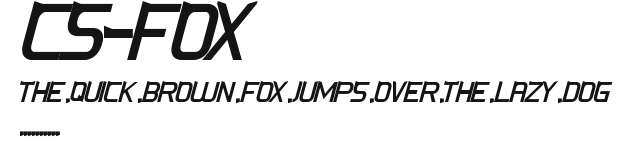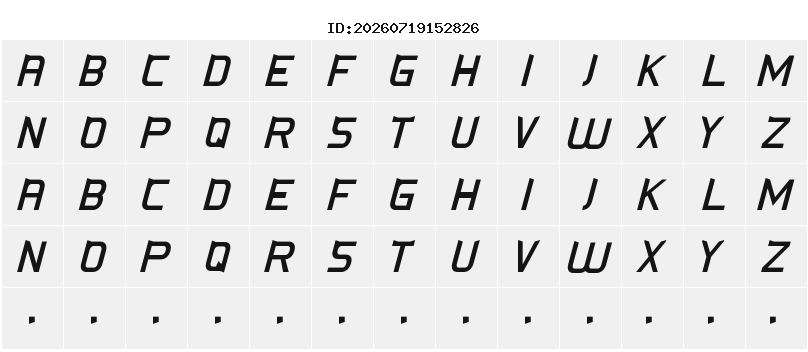
• Font Name: CS-Fox
• Designer: Charlie Samways
About CS-Fox.ttf
CS-Fox.ttf is a modern, elegant sans-serif font designed for ultimate readability and visual harmony. Perfect for branding, headlines, web design, and print materials.